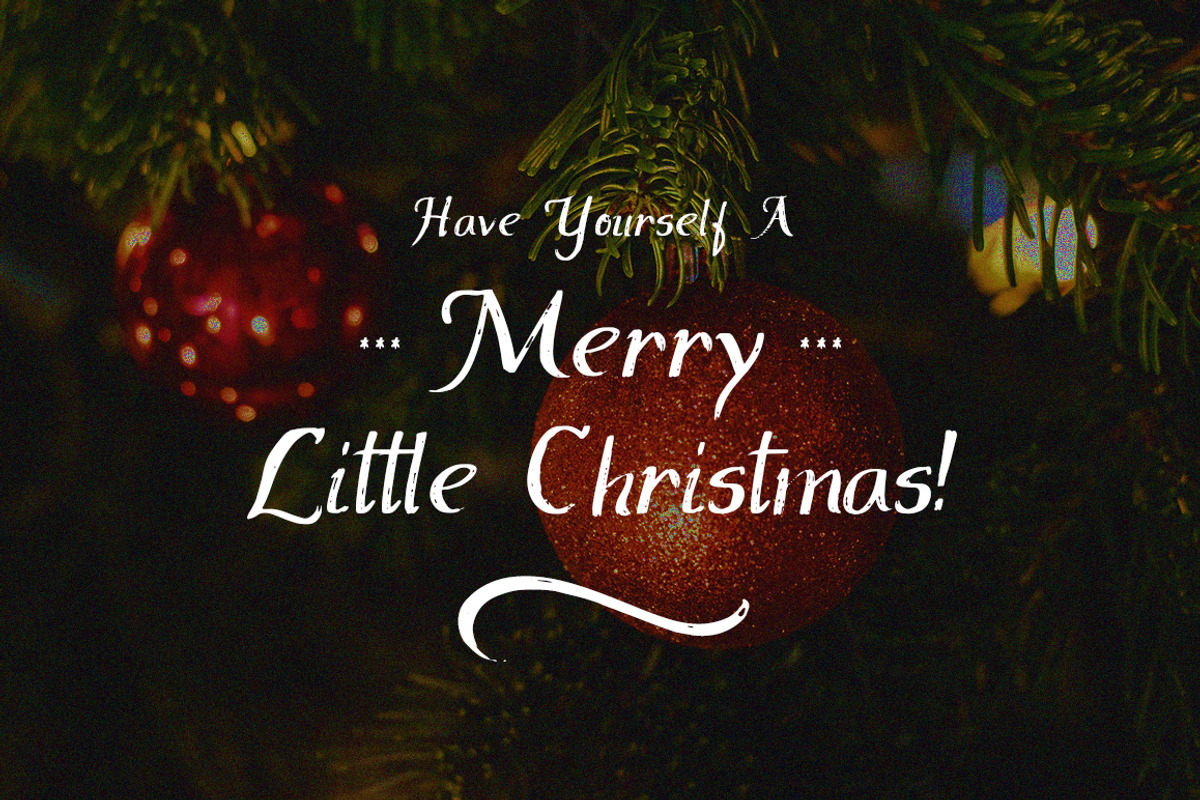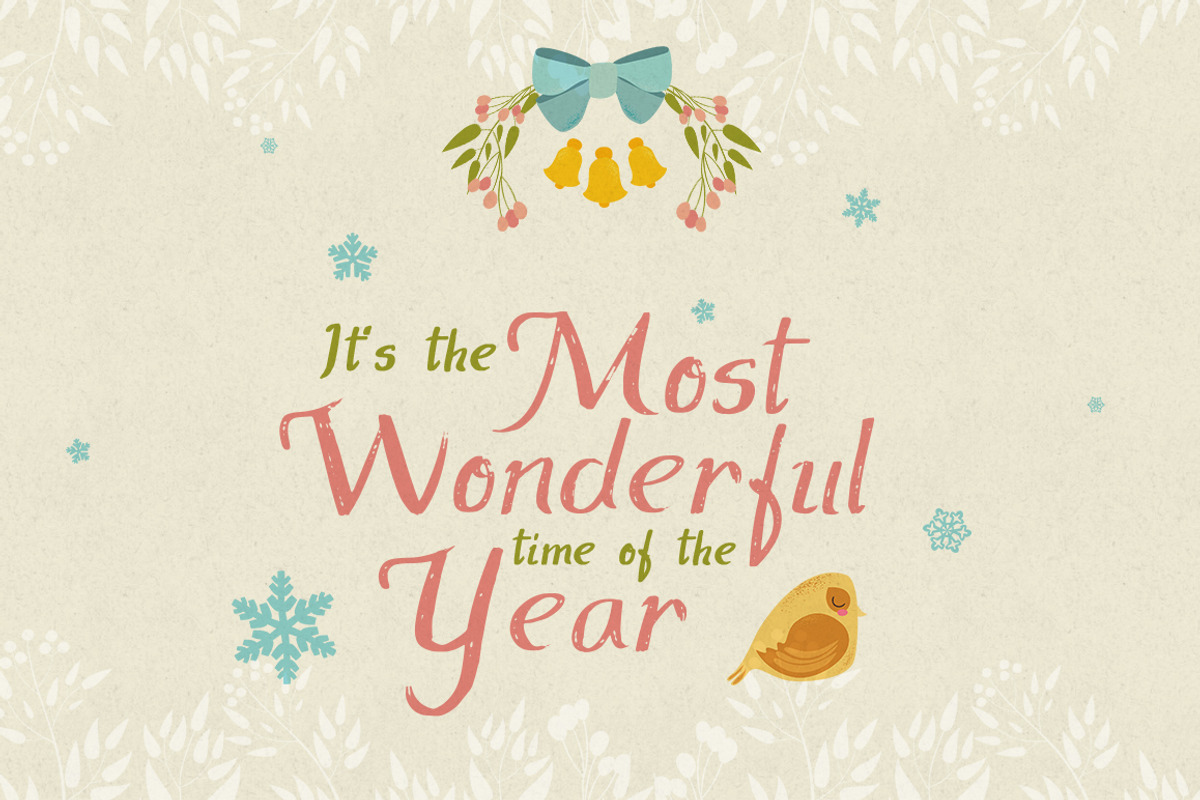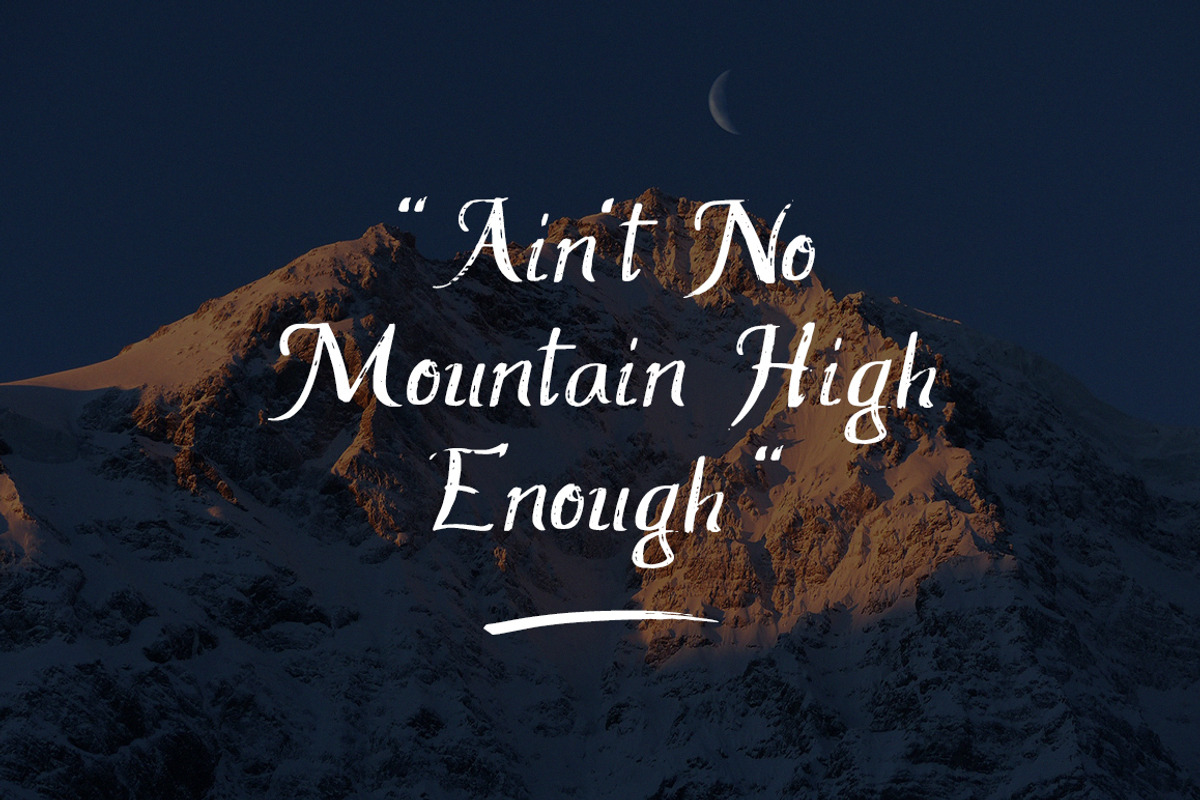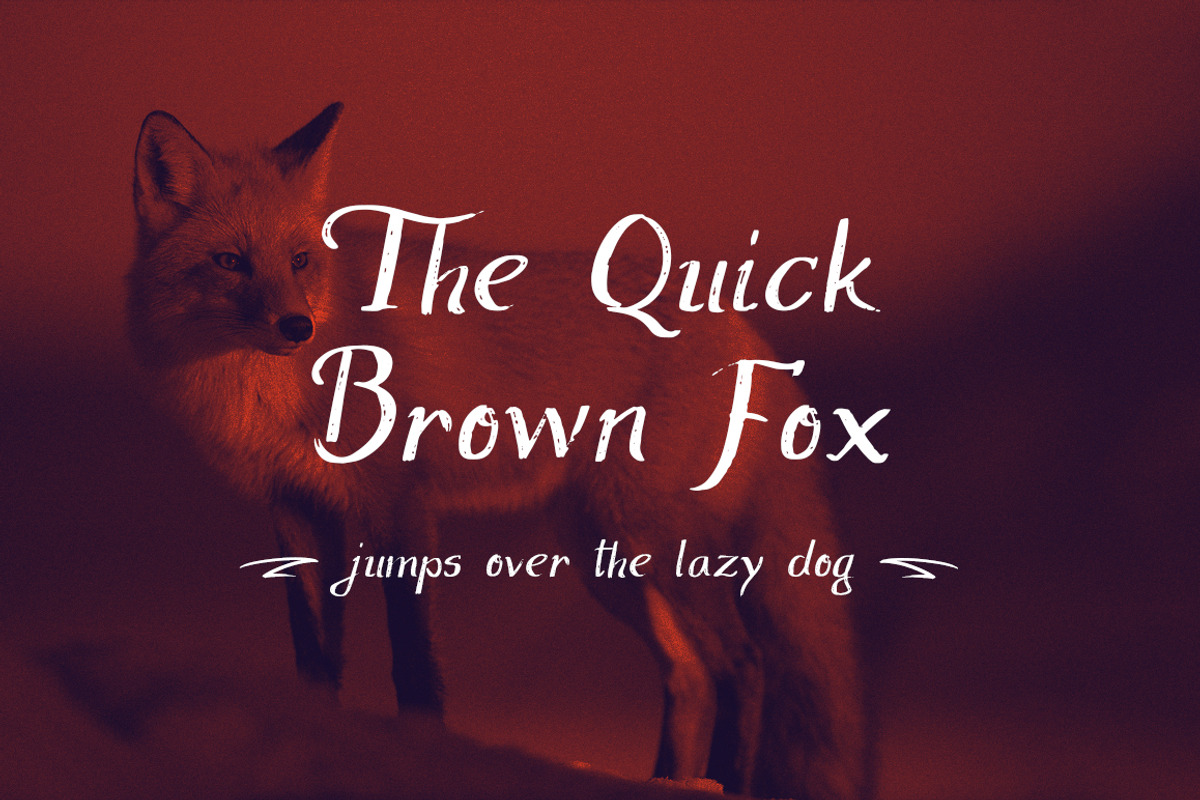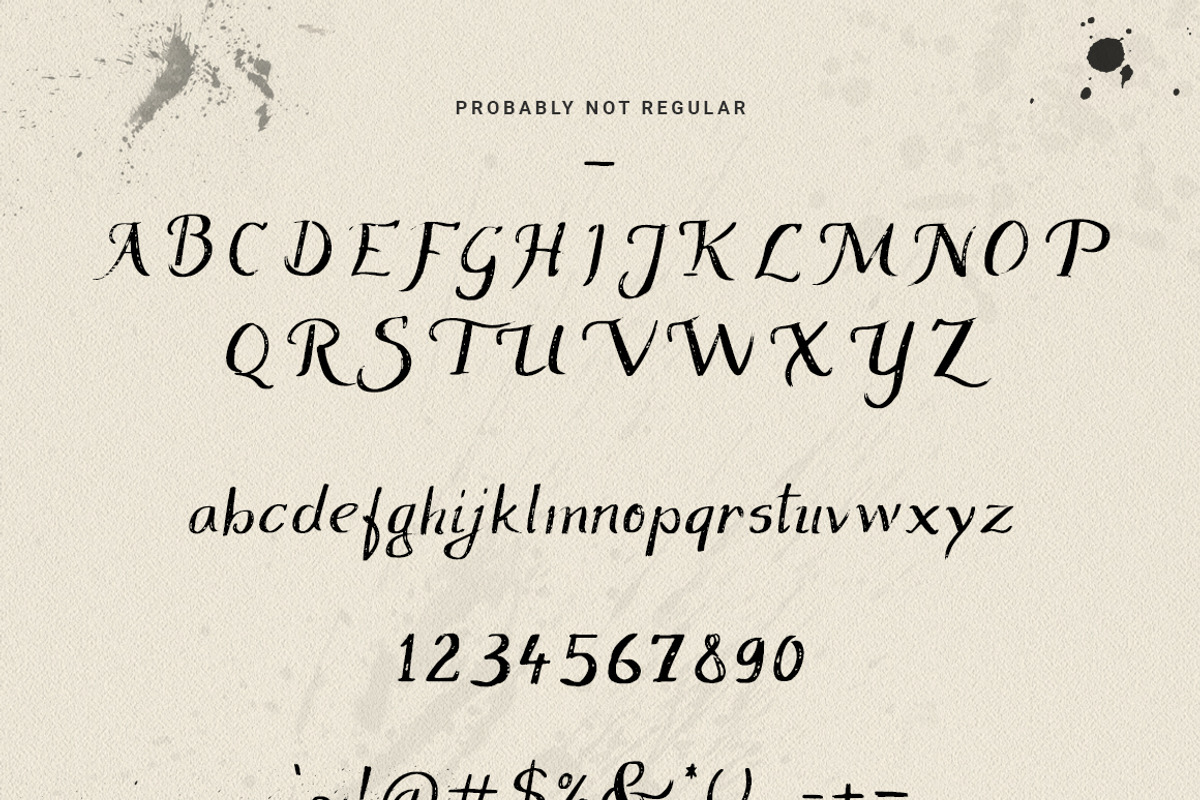
ProbablyNot - brush script
ProbablyNot is a brand new, handmade brush script font, with a classic but also scribbled feel.
The font is perfect for Christmas greeting cards, wedding invitations and why not, for any creative project that fits this style.
ProbablyNot comes in 2 styles, a regular version and an alternate one. To compliment the font there are also 10 bonus swashes available, that you can use to add a note of personality to your work.